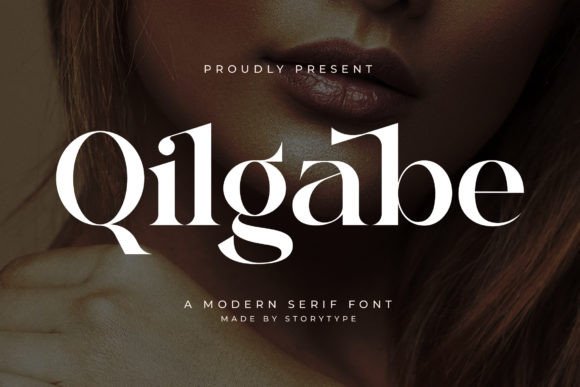
Qilgabe Font: An Exquisite Serif Symphony for Your Design Masterpieces
When elegance and charm dance together, they create a masterpiece called Qilgabe Font. This modern serif font, lovingly crafted by Storytype Studio, is an ode to timeless beauty and sophistication. With its graceful curves and refined lines, Qilgabe Font transforms your words into an enchanting melody, resonating with your audience's hearts.
Step into a world of boundless creativity, where Qilgabe Font becomes your trusted companion. Its versatile nature effortlessly adapts to a myriad of projects, from elegant invitations to captivating branding materials. Experience the joy of crafting designs that exude a timeless allure, leaving an unforgettable impression on all who behold them.
Qilgabe Font is more than just a font; it's an expression of individuality, a reflection of your unique style. Whether you're a seasoned designer or just starting your creative journey, Qilgabe Font empowers you to turn your vision into reality. Its user-friendly design ensures a smooth and seamless experience, allowing you to focus on what truly matters: creating designs that captivate and inspire.
Indulge in the beauty of Qilgabe Font and unlock a world of endless possibilities. Discover the art of creating designs that transcend time, designs that speak volumes without uttering a single word. Let Qilgabe Font be your muse, your guiding light on the path to design excellence.